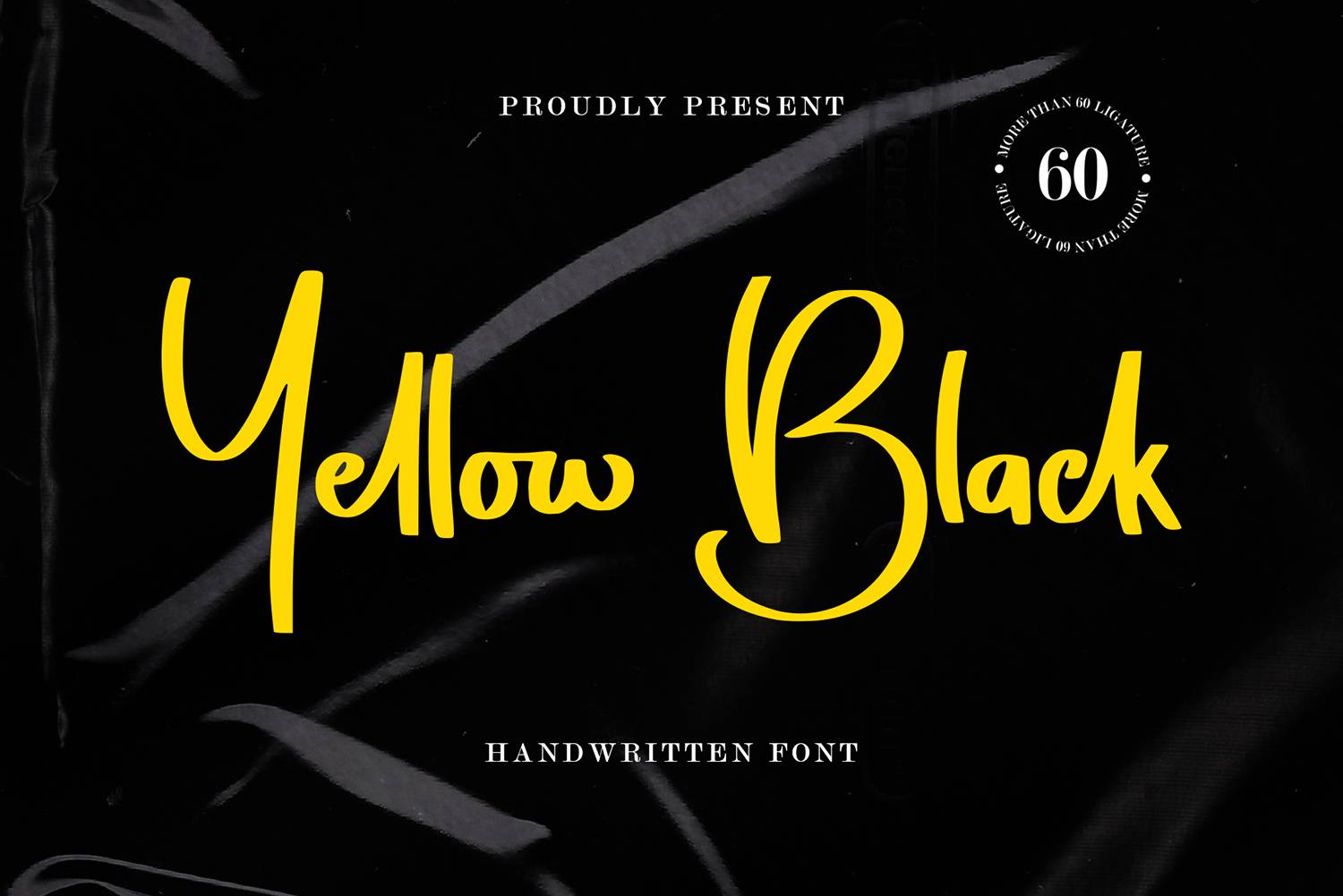
Yellow Black is a lively, handwritten script font with a slender, tall appearance and playful, slightly irregular letterforms. Its casual style and energetic character make it ideal for creative projects, informal branding, and personal use where a friendly, approachable vibe is desired. This font works well in headlines, invitations, and artistic designs that benefit from a distinctive, personal touch.
Yellow Black Font
About Yellow Black Font